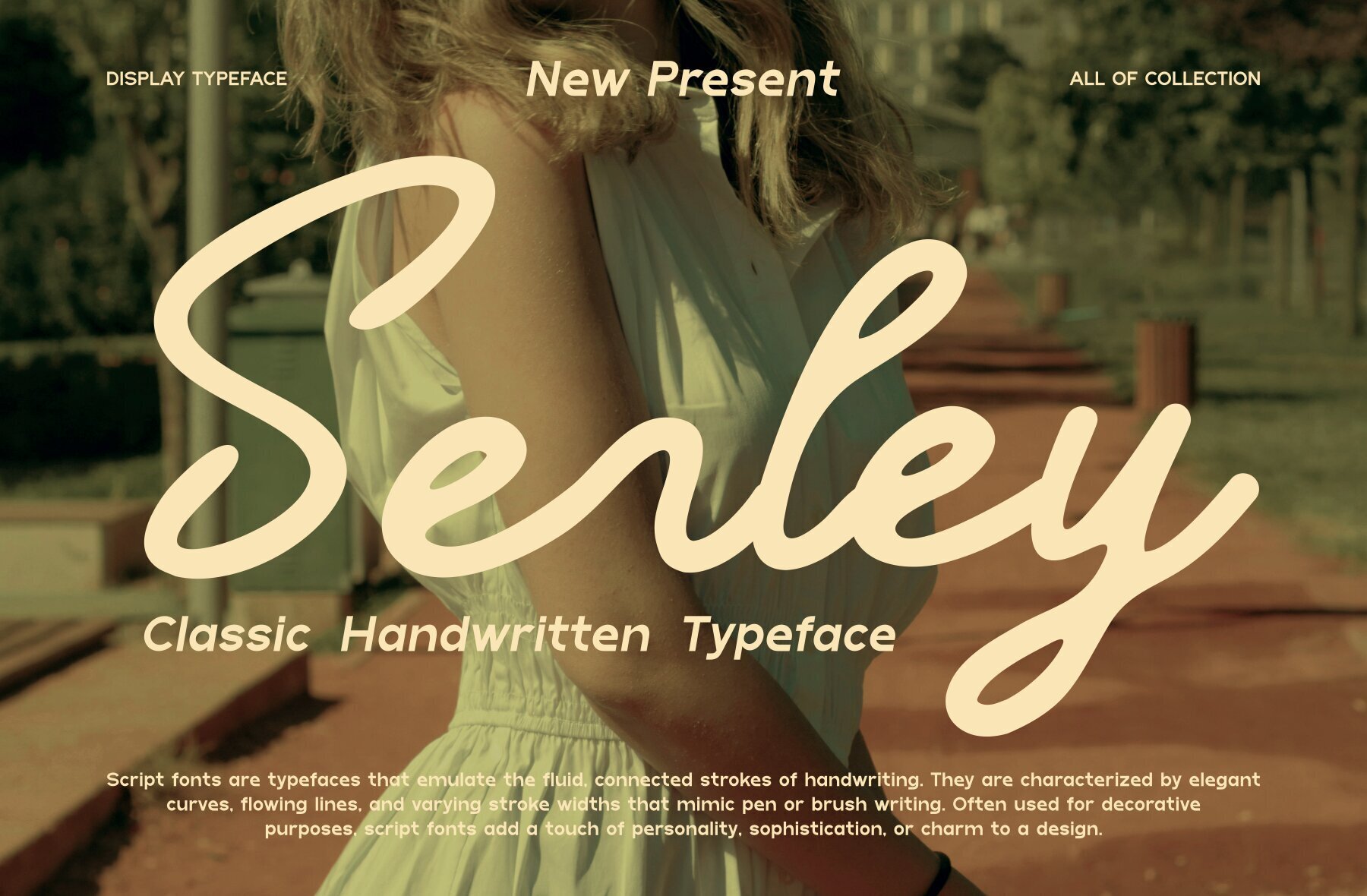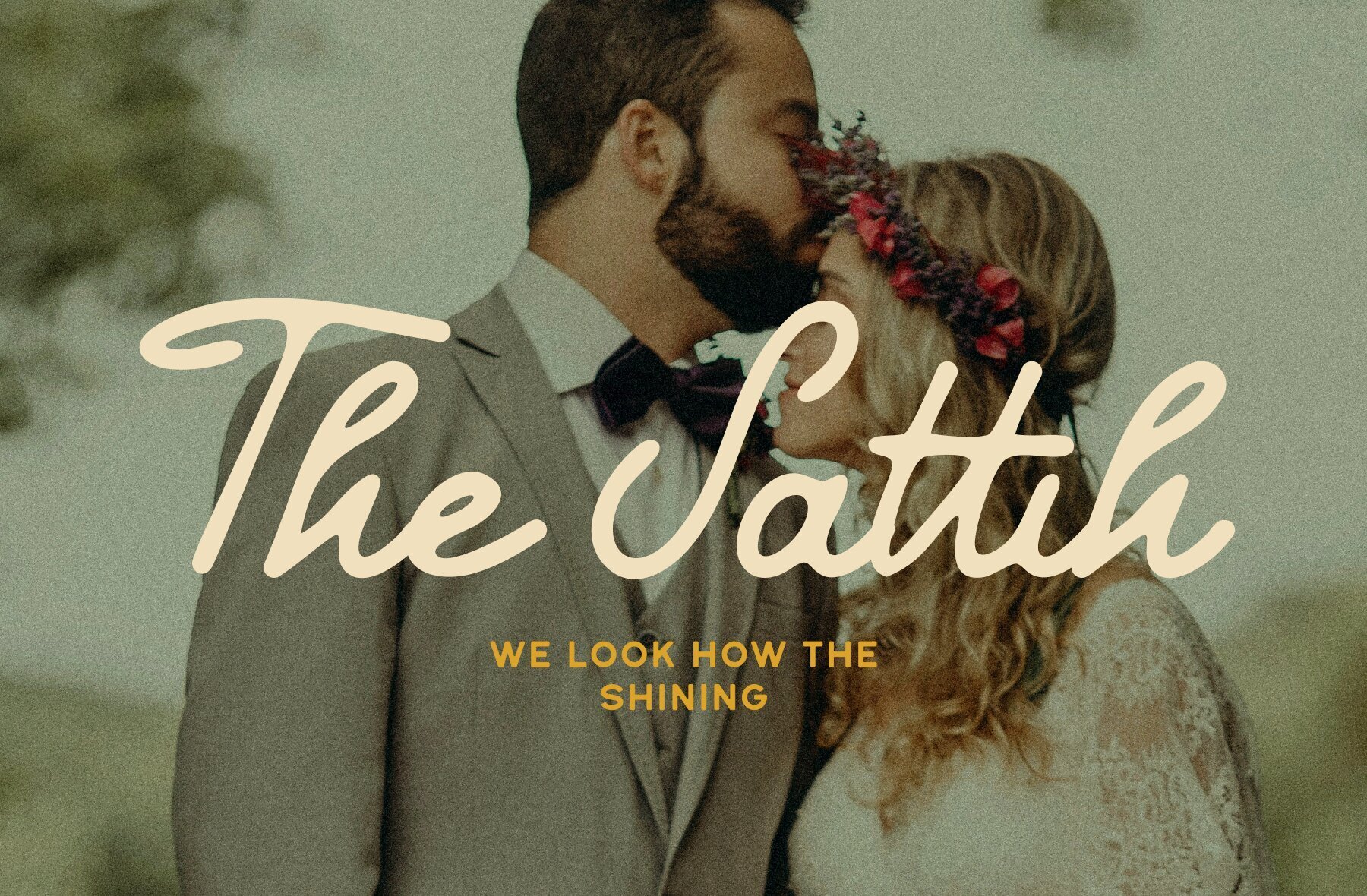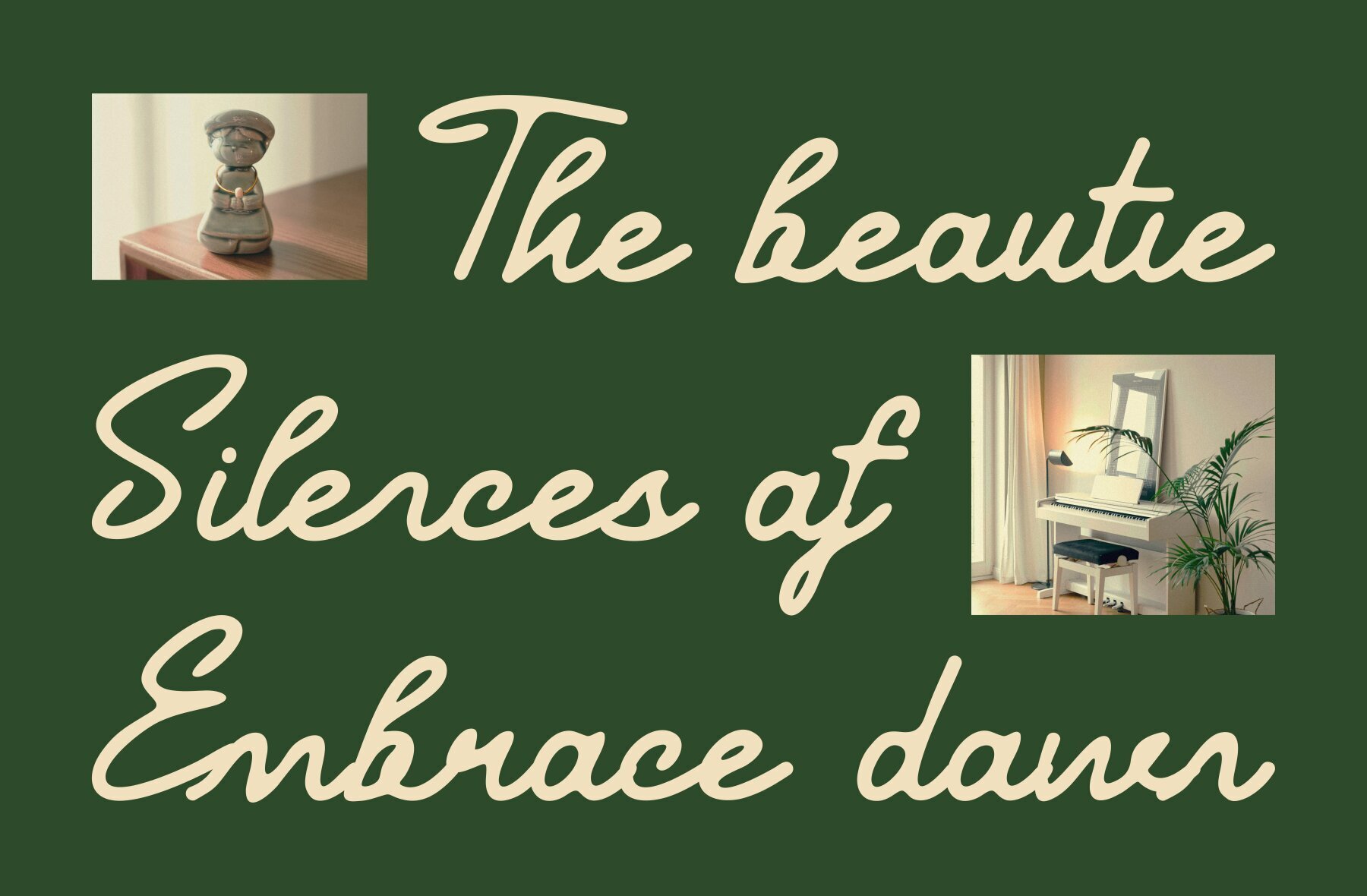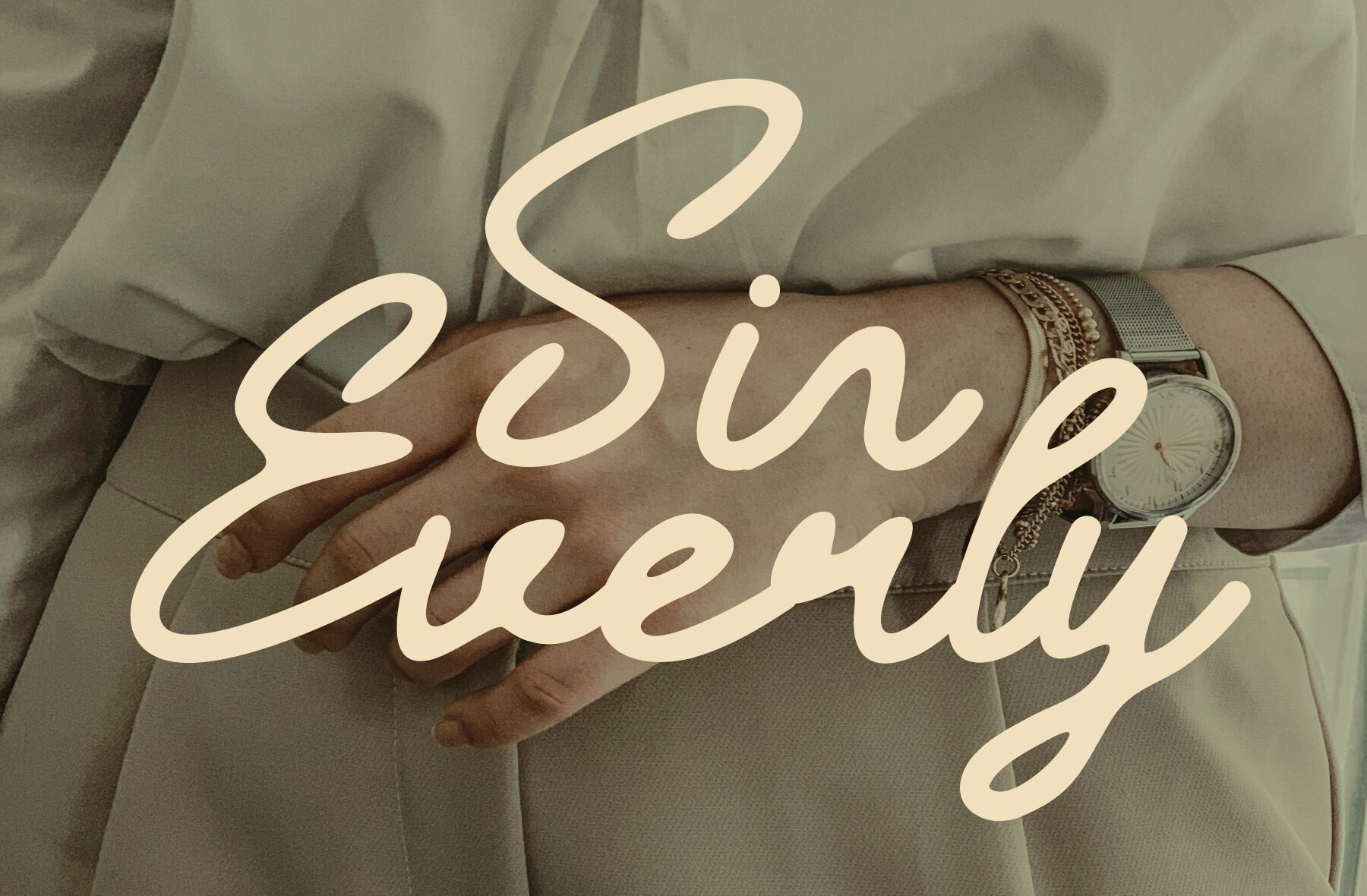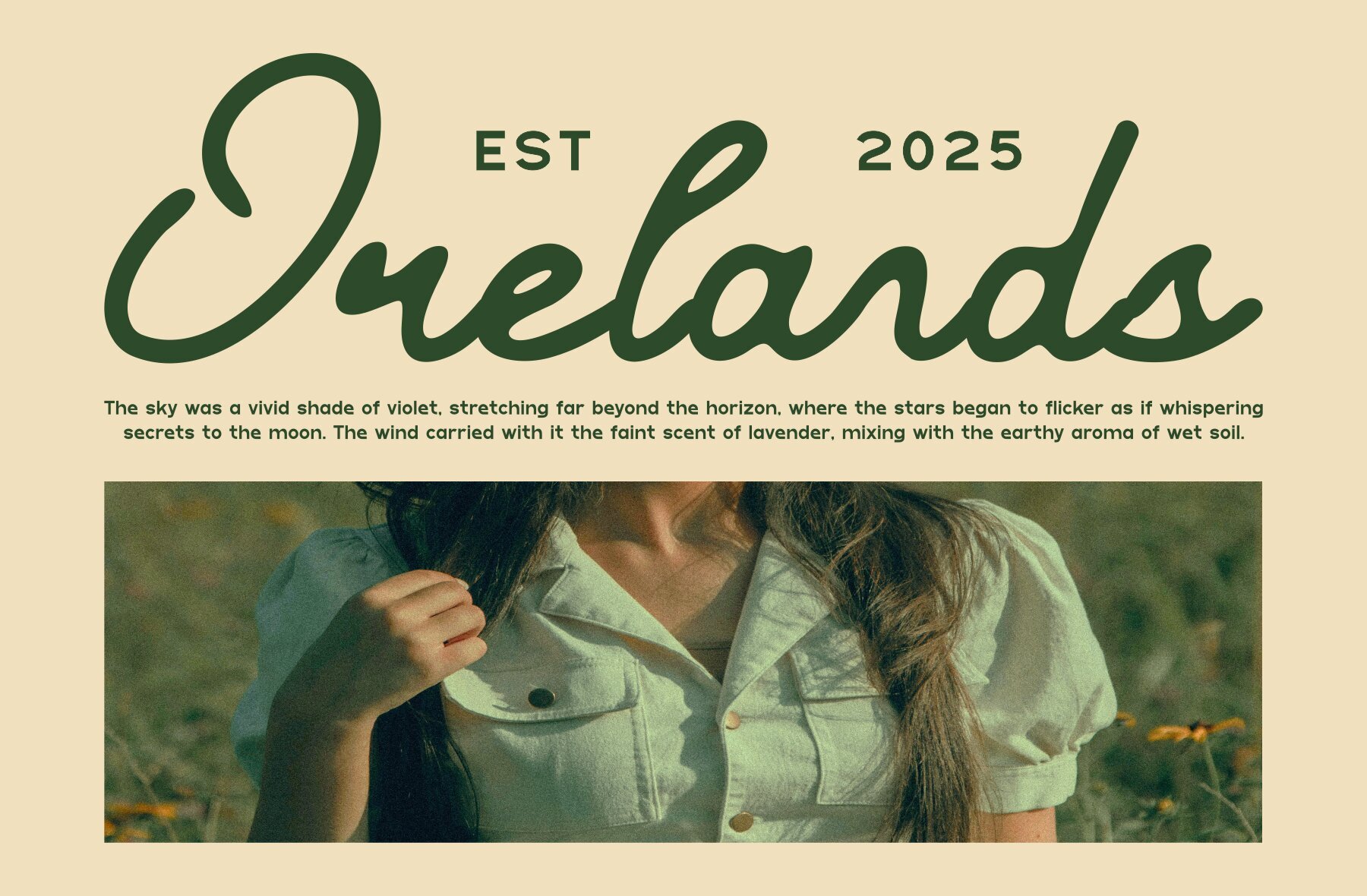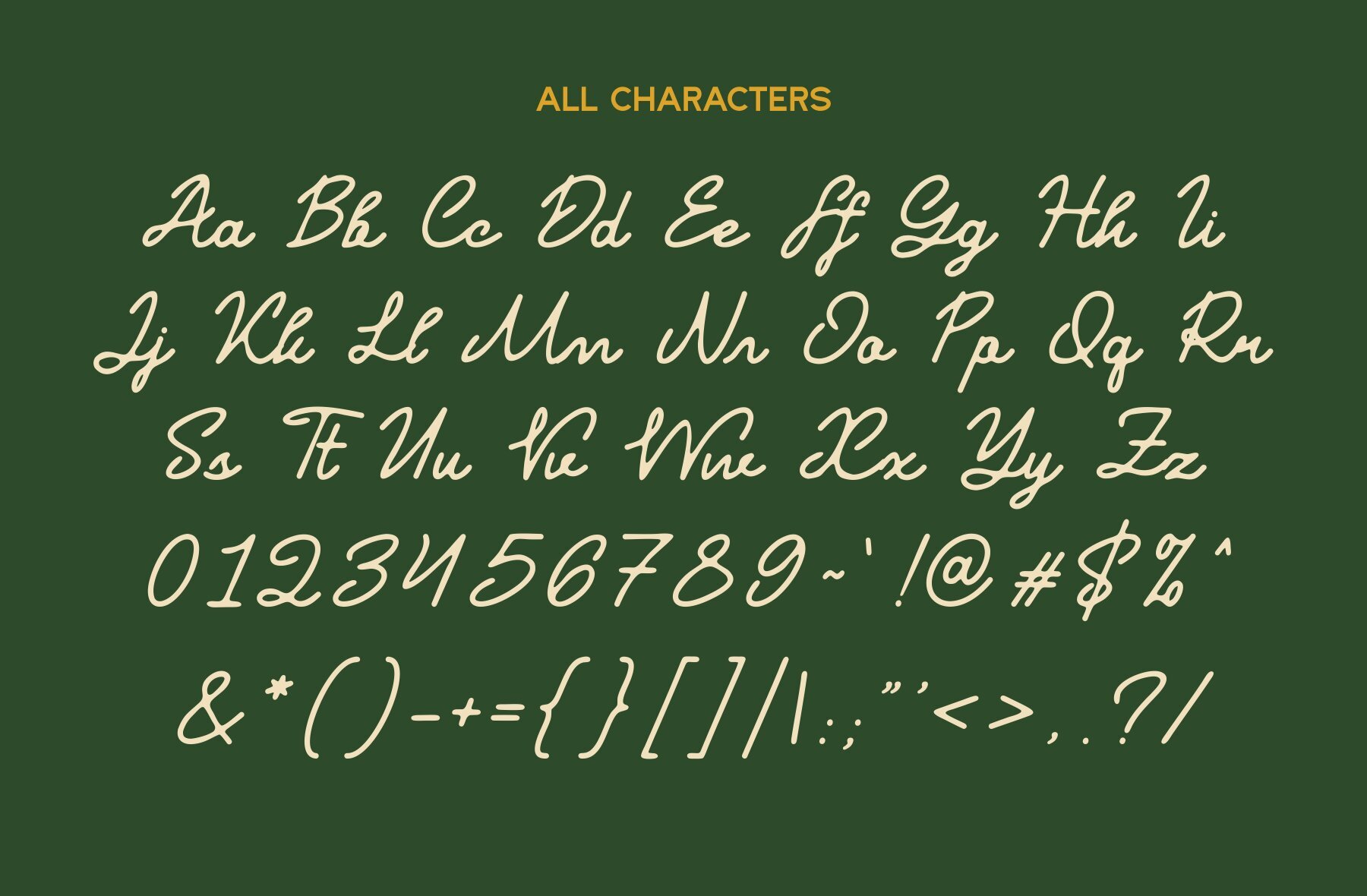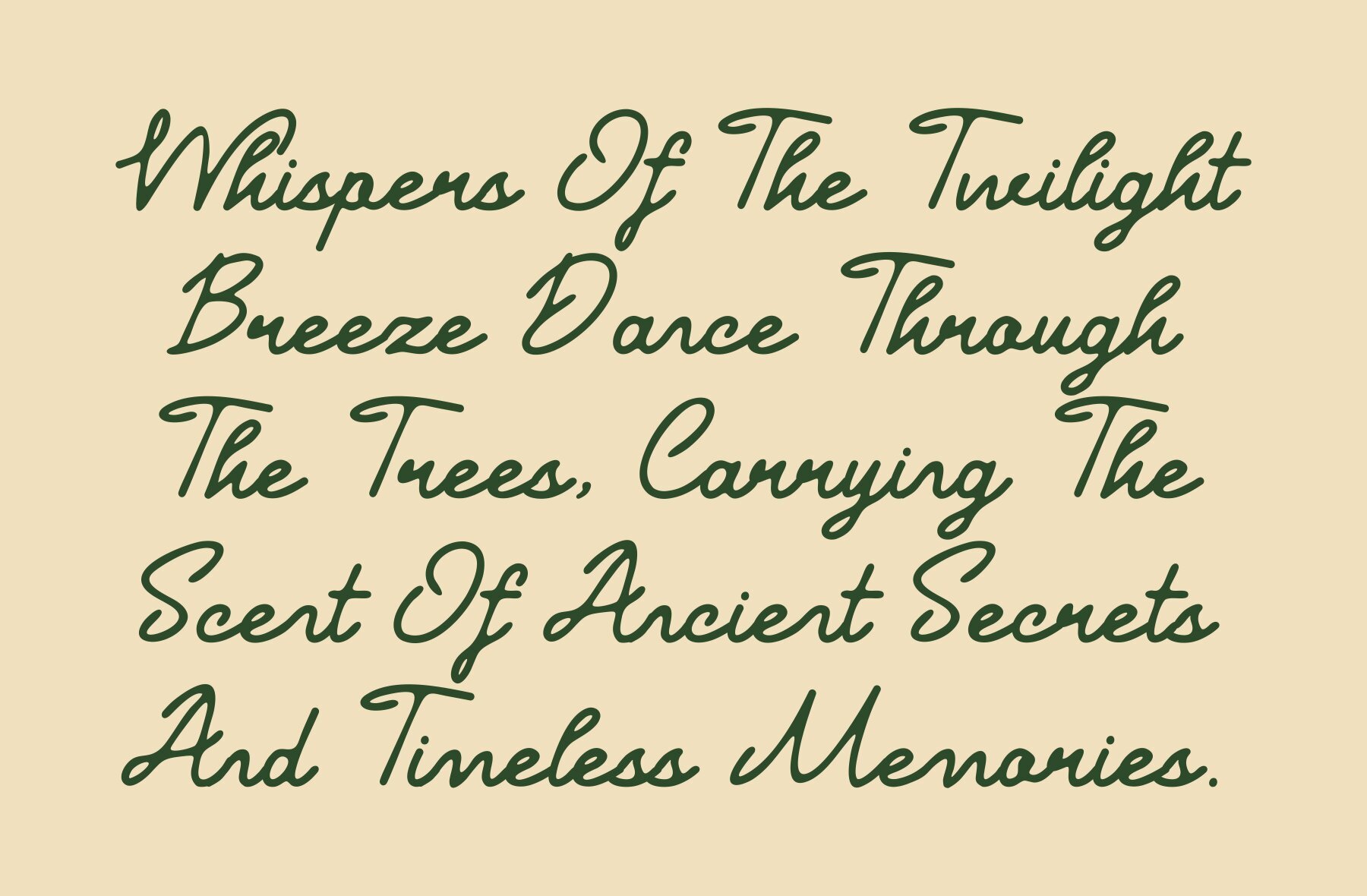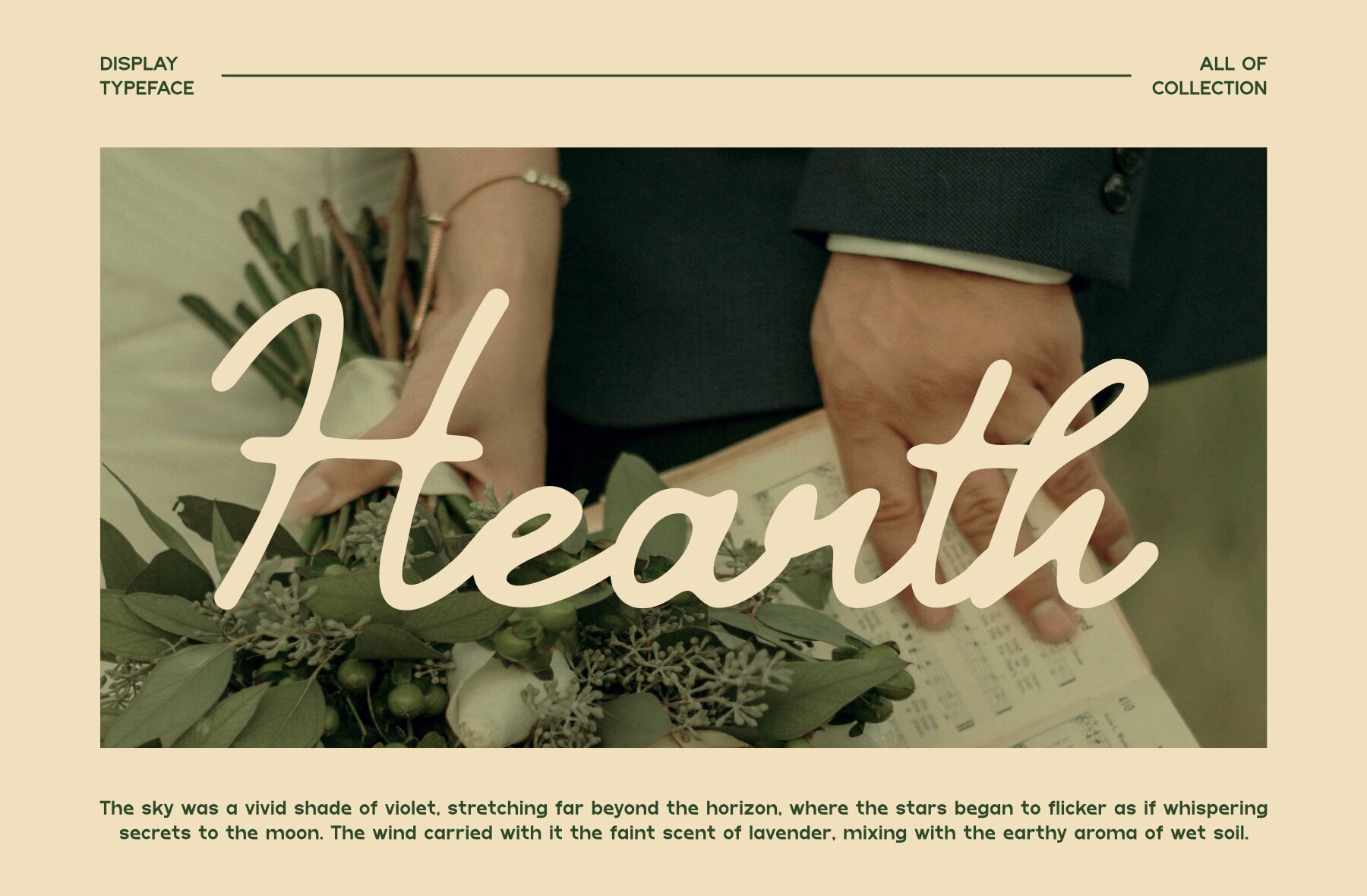
Senley Font
Senley
The Senley typeface offers a sophisticated touch to any design project. Its blend of traditional handwritten charm and modernity makes it ideal for a wide range of creative applications, from branding to contemporary typography. With clean strokes and a professional aesthetic, Senley meets the demands of innovative design environments.Senley: Classic Handwritten Typeface